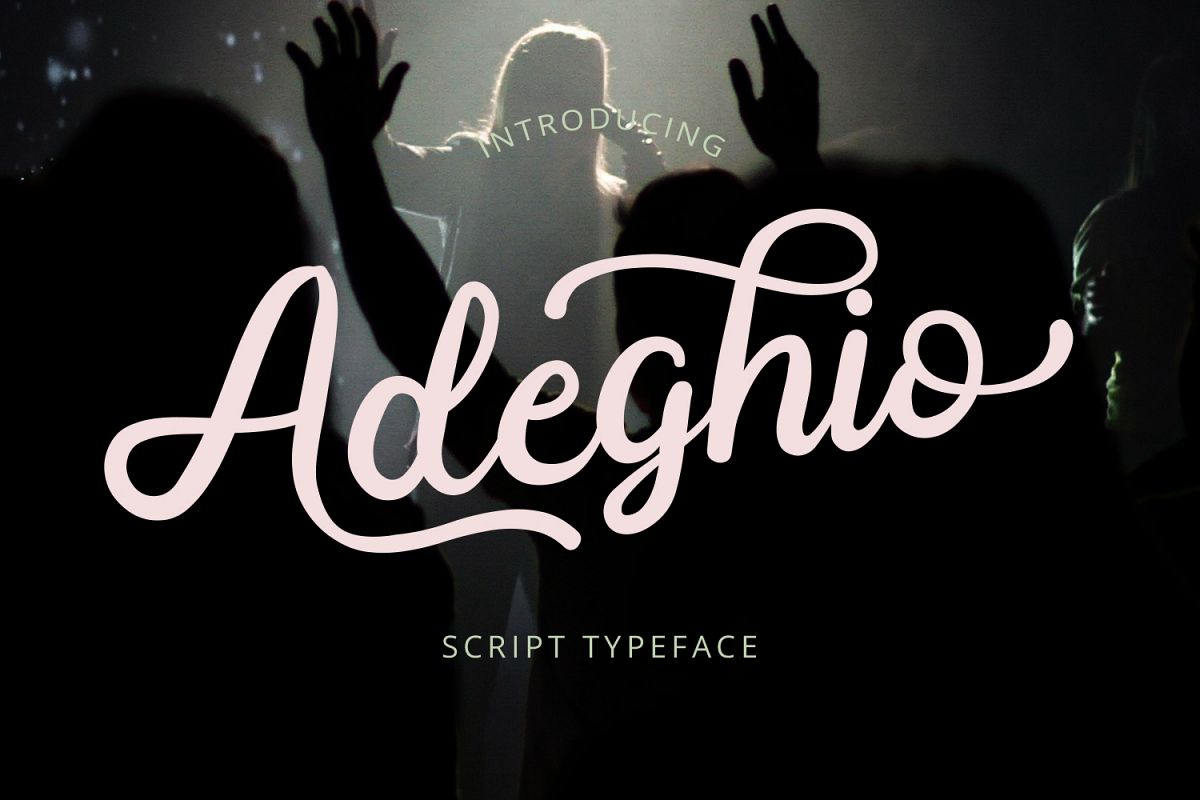
Adeghio Stylish Script Font
Adeghio is a new modern & fresh script with a handwritten and natural script style. This font will make your design look elegant, natural and stylish. You can use this font to make a logo for branding, beautiful quote design, fashion design, product display design, wedding invitation, or for an authentic signature. This font already PUA Encoded so you can easily use opentype feature.